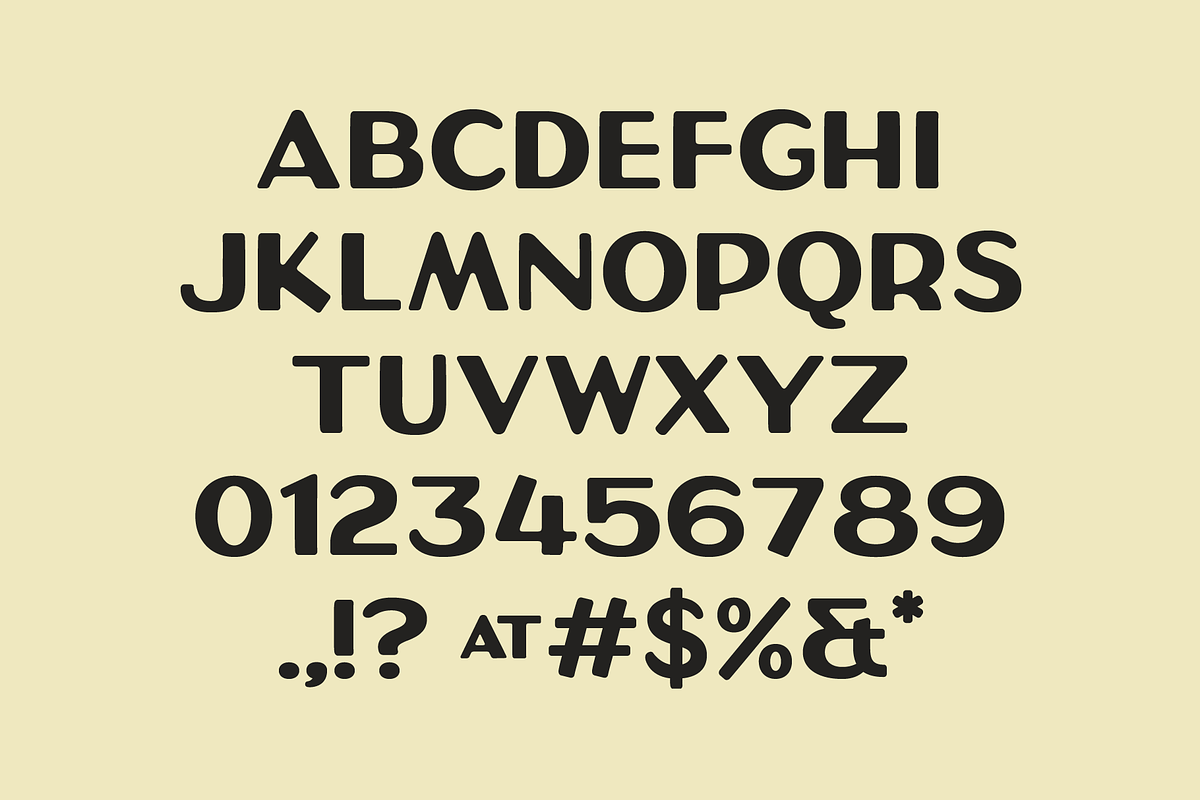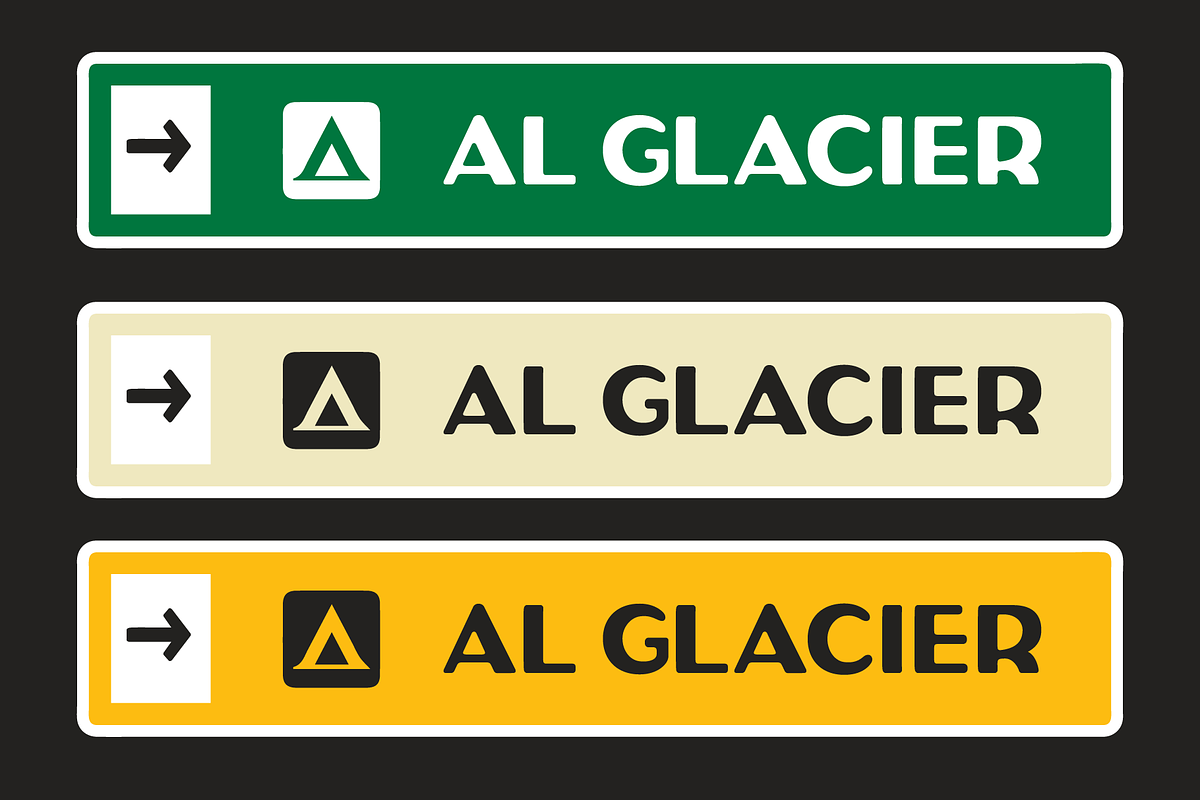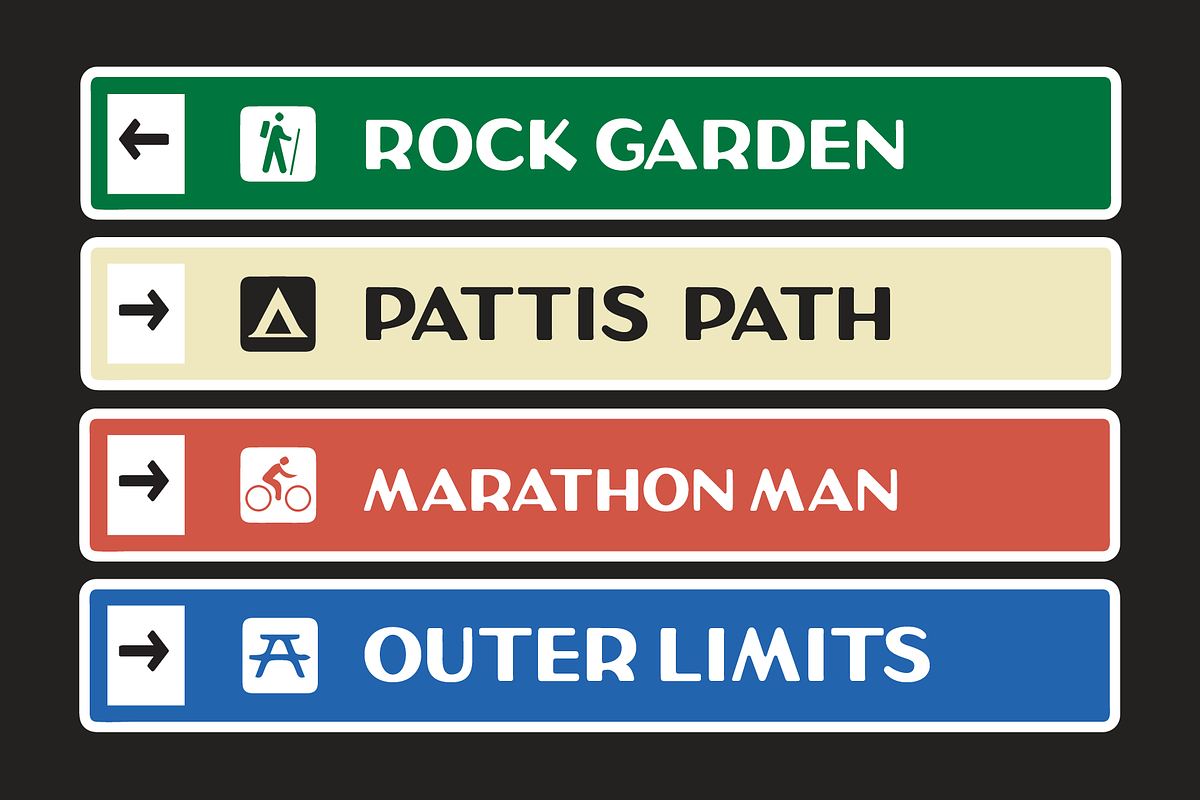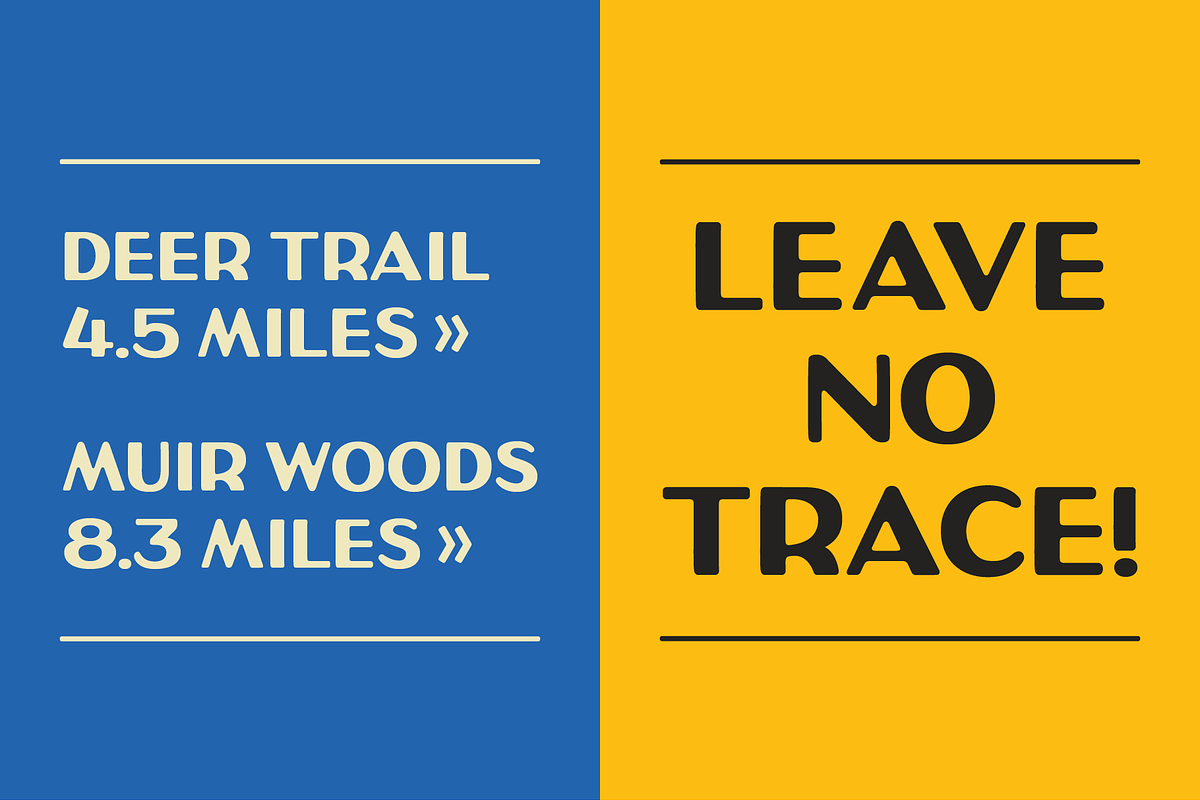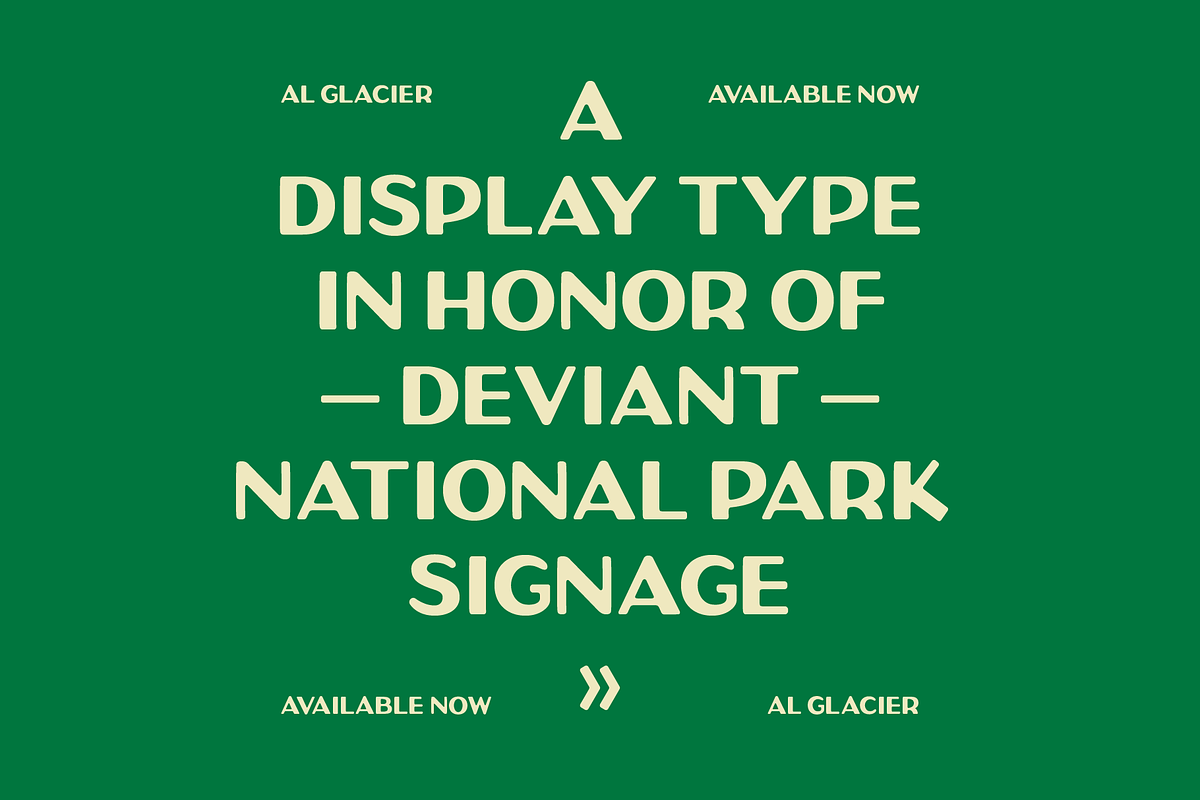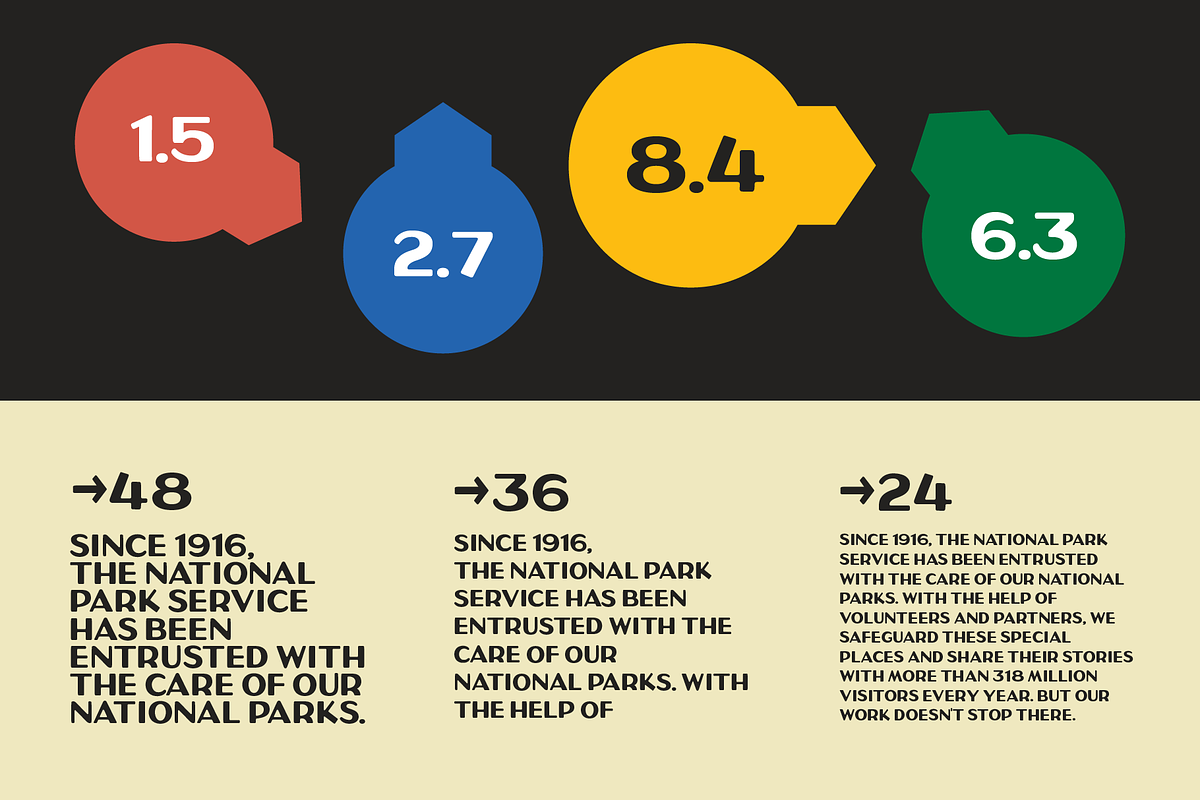
AL Glacier
As early as 1926, the National Park Service attempted to implement graphic standards to create unity across the parks. After many attempts at standardization over the decades, dozens of parks still feature entrance signs that stray from the official guide. Allow technically “wrong” they undoubtedly embody the character of the parks. AL Glacier is a soft display type designed in honor of these deviant and charming National Park signs.
Glacier adds a vintage, Americana feel to work instantly. It's outdoorsy, soft, and charming.